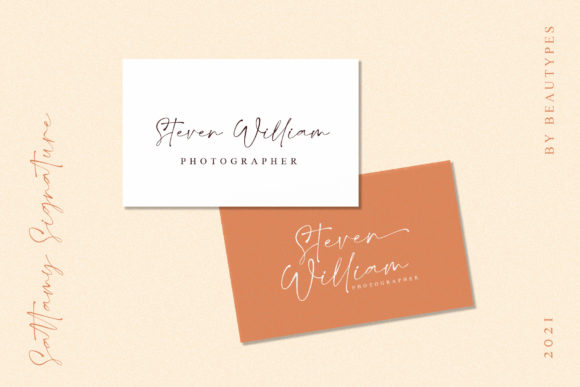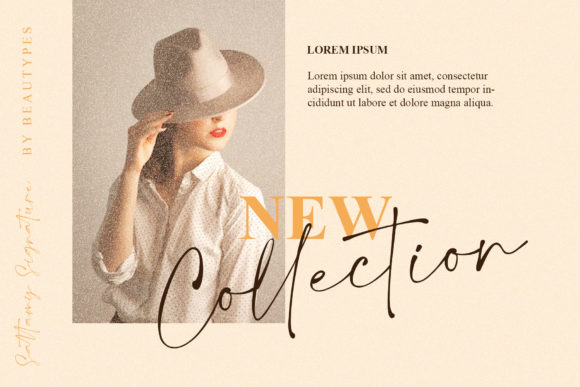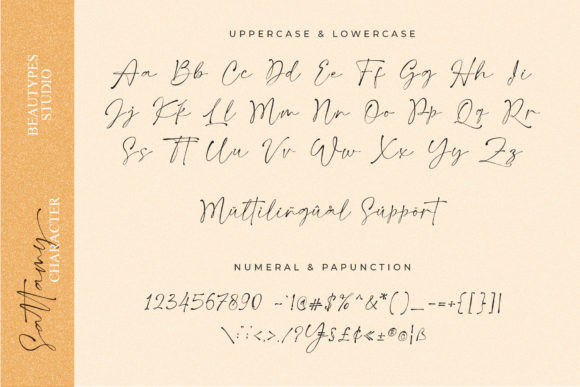
Introduction to Sattamy Signature Font
Have you ever found yourself staring at a blank page, struggling to put your creative vision into words? The blank canvas can be intimidating, but with the right design tools, anything is possible. For designers and creatives, a great font can be the difference between a good design and a great one.
That’s where the Sattamy Signature Font comes in – a beautiful, organic handwritten font perfect for branding, signature, wedding invitations, and more. Its unique, high-quality design makes it an invaluable resource for any creative project. With its transparent background and elegant lines, this font is sure to elevate your designs and leave a lasting impression.
And the best part? The Sattamy Signature Font is PUA encoded, making it easy to access all of its glyphs and swashes. Whether you’re working on a personal project or a commercial design, this font is a valuable asset that’s sure to become a go-to resource. In this article, we’ll take a closer look at what makes the Sattamy Signature Font so special and why it’s a must-have for designers.
Key Features of Sattamy Signature Font
- Unique, hand-drawn design ideal for creative projects and personal branding.
- Includes a transparent background, allowing for seamless integration with various design elements.
- Comes in a single weight, with 1000+ glyphs, making it suitable for a wide range of design applications.
- Designed to be used at high resolutions (up to 300 DPI), ensuring crisp and clear text display.
- Perfect for adding a personal touch to logos, business cards, and other design elements.
Honest Review: Sattamy Signature Font
I recently stumbled upon the Sattamy Signature Font while searching for a free download to use in a creative project. At first glance, I was impressed by the high quality and unique design.
- ✨ The font’s cursive script style adds a touch of elegance to any text.
- ✨ The transparent background option is a great feature for designers who want to create visually appealing graphics.
- ✨ The font is highly customizable, making it suitable for a wide range of design projects.
However, I did encounter some limitations during my testing:
- ⚠️ The font may not be suitable for projects that require a more modern or bold aesthetic.
- ⚠️ Some users may find the font’s cursive style difficult to read at smaller font sizes.
Overall, I was impressed by the Sattamy Signature Font and would recommend it as a valuable design resource. Its high quality and unique design make it a great addition to any designer’s toolkit.
Tips for Getting the Most Out of the Sattamy Signature Font
Here are some tips for getting the most out of the Sattamy Signature Font: use it for a variety of creative projects, experiment with different font sizes and colors, and pair it with other design resources for a unique look.
The Sattamy Signature Font is commonly used for a wide range of creative projects, including social media graphics, presentations, logos, and documents. Its high-quality design and transparent background make it perfect for a variety of design applications.
Alternatives to Sattamy Signature Font
Alex Brush Font is a beautiful, handwritten font that exudes creativity and warmth. It’s a great design resource for designers working on projects that require a personal touch. Alex Brush Font is ideal for use on invitations, greeting cards, or any other creative project that demands a unique feel. Compared to Sattamy Signature Font, Alex Brush Font has a more organic and natural look.
Is the Sattamy Signature Font suitable for designs with a transparent background?
Yes, the Sattamy Signature Font is designed to work well with transparent backgrounds. Since it has a high-quality design, it will look crisp and clear even when layered over a transparent background. This makes it an ideal choice for creative projects that require a clean and modern look.